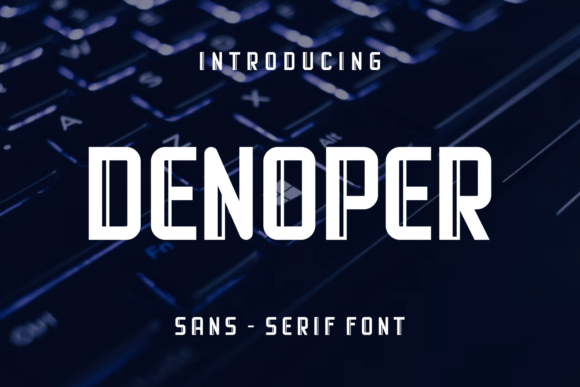
Unlock Your Creative Potential with the Perfect Display Font
Have you ever been stuck on a design project, struggling to find the right font to bring your vision to life? It’s a frustrating feeling, but one that’s all too familiar for designers. For me, it was a late-night brainstorming session with a blank page in front of me, searching for the perfect font to match my client’s brand identity. And then, it hit me – the perfect font that would elevate my design from ordinary to extraordinary.
Enter Denoper Font, a stylish display font that’s designed to take your projects to the next level. With its unique blend of modern and vintage flair, Denoper Font is the perfect choice for designers looking to add a touch of sophistication and elegance to their work. Whether you’re creating a logo, brochure, or website, Denoper Font is the perfect partner to help you bring your vision to life.
Denoper Font Key Features
- Font Family: Denoper Font is a unique, modern sans-serif font designed for various digital applications.
- Character Count: The font family includes a wide range of characters, including Latin, Cyrillic, and Greek alphabets, with over 1,000 glyphs.
- Size: The font comes in multiple weights, from Thin to Black, with corresponding font sizes ranging from 8 to 72 points.
- Unique Characteristics: The Denoper Font features a distinctive geometric design, with clean lines and precise typography, making it ideal for modern branding and digital interfaces.
Designer Review: Denoper Font
Overall, I think Denoper Font is a decent addition to any designer’s toolkit. It has its strengths and weaknesses, but let’s dive into the good stuff first. ✨ One of the things that works well is its unique character set, which includes a wide range of international characters. This makes it a great option for designers working on global projects. The font also has a clean, modern aesthetic that will appeal to many users.
Another advantage of Denoper Font is its versatility. It comes in a variety of weights and styles, making it easy to find the perfect fit for any project. Whether you’re looking for a bold, attention-grabbing headline or a subtle, readable body text, Denoper Font has got you covered.
While Denoper Font has its strengths, there are a few areas where it falls short. ⚠️ One of the main limitations is its lack of support for certain languages, which may be a deal-breaker for some designers. Additionally, the font can feel a bit generic at times, which may make it difficult to stand out in a crowded design landscape.
In conclusion, Denoper Font is a solid choice for designers, but it’s not without its limitations. While it excels in certain areas, it falls short in others. If you’re looking for a versatile, modern font with a unique character set, Denoper Font may be worth considering. However, if you need support for a specific language or want a more distinctive font, you may want to look elsewhere.
- Unique character set with international support
- Clean, modern aesthetic
- Available in a variety of weights and styles
- Lack of support for certain languages
- Can feel generic at times
Getting the Most Out of Denoper Font
For optimal results, use Denoper Font in conjunction with bold and italic text styles to create visual interest and emphasis.
Denoper Font is ideal for:
- Typography-based designs
- Print and digital marketing materials